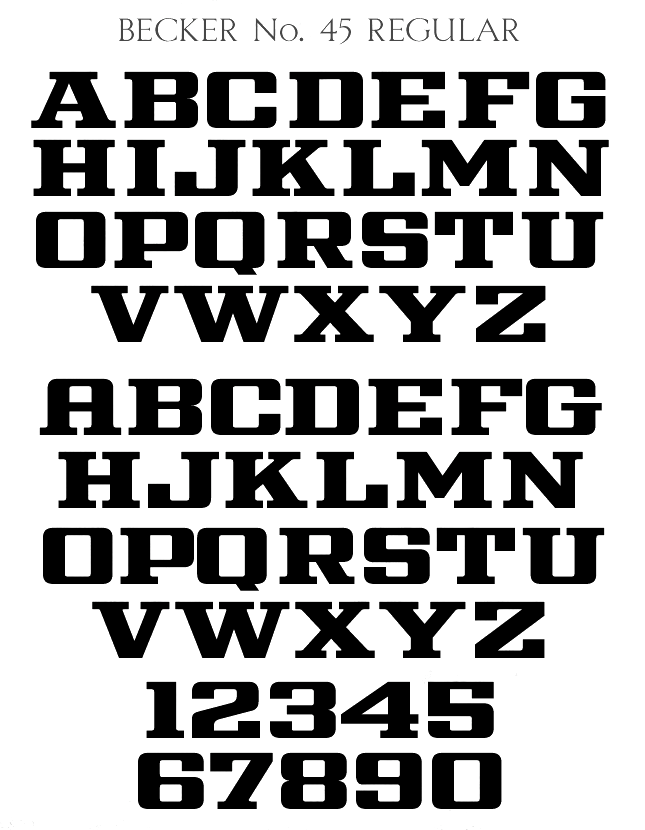
Kaitlin Sims
Designer of the art deco typeface LHF Hudson (2015, Letterhead Fonts), which is inspired by lettering artist Samuel Welo. She also made LHF Becker No. 45 (2015, inspired by an alphabet of Alf Becker (1930s)) and LHF Distressed Block (2015).